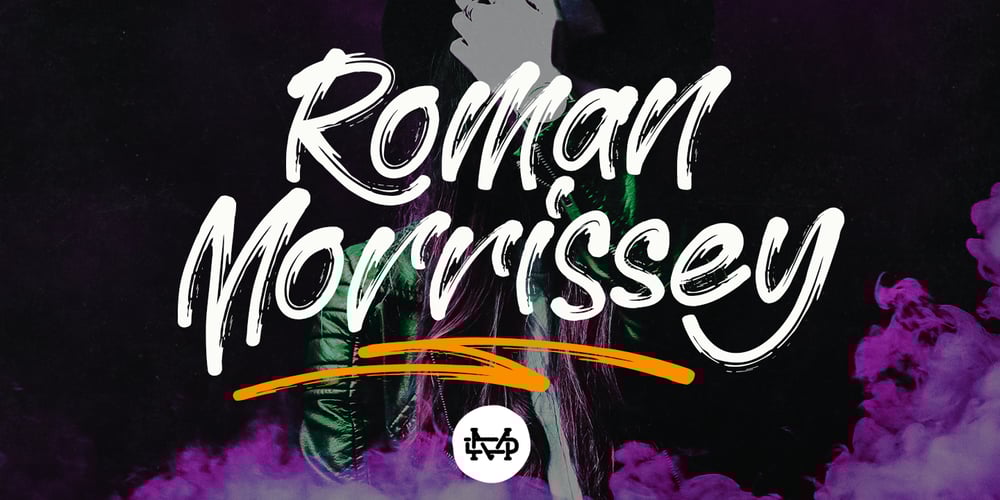
Roman Morrissey
Roman Morrissey font
Roman Morrissey Font Family was designed by Suandana ipandemade and published by madeDeduk. Roman Morrissey contains 2 styles and family package options. Roman Morrissey is a handwritten brush script. This font is perfect for poster design, book covers, merchandise, fashion campaigns, newsletters, branding, advertising, magazines, greeting cards, album covers, quote designs, and more. Feature: – UPPERCASE – lowercase – Number & Symbol – International Glyphs – Alternative Uppercase – Alternative lowercase – Ligature – Swash and Splash If you need anything else please contact me by dedukvic@gmail.com